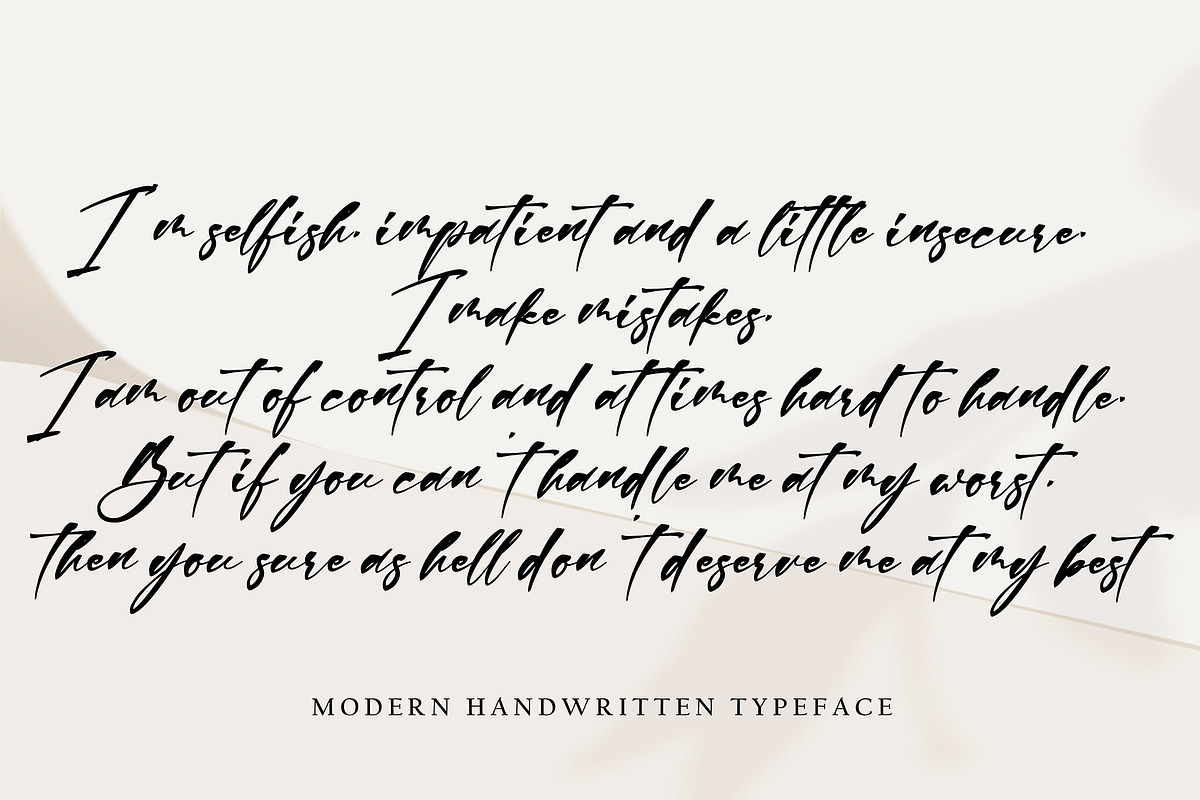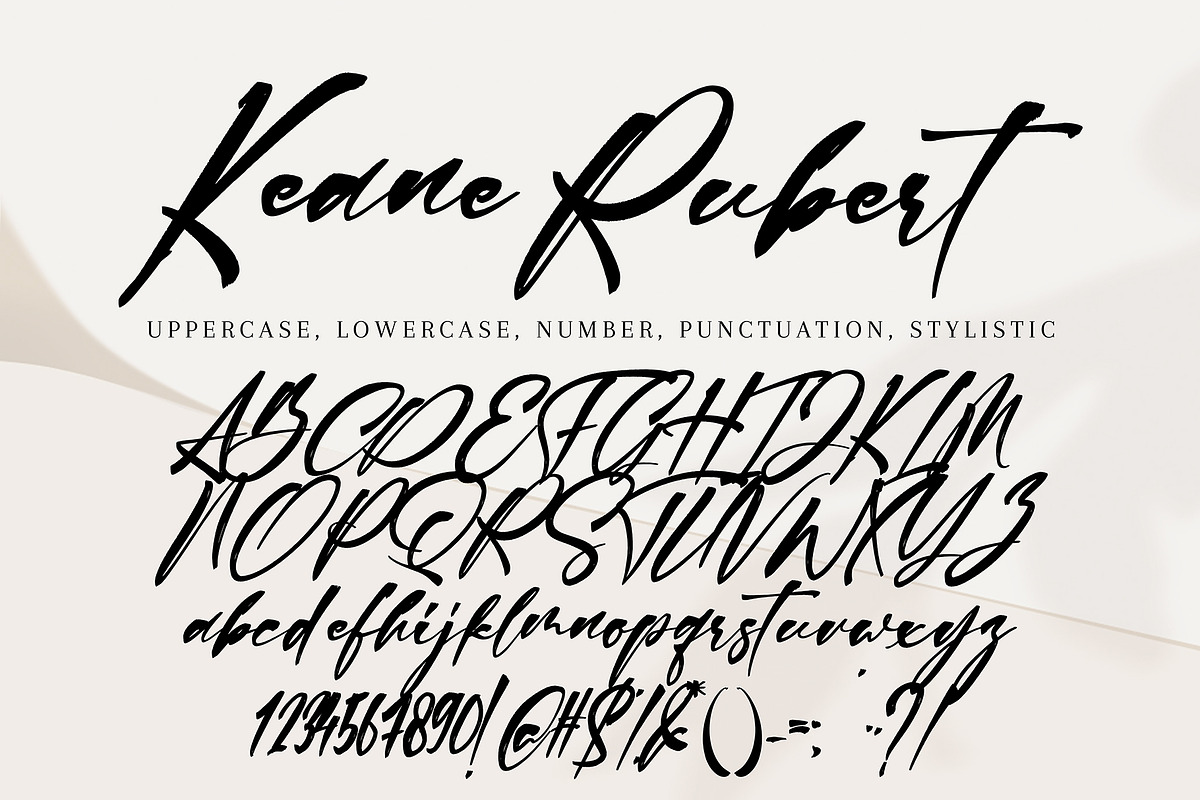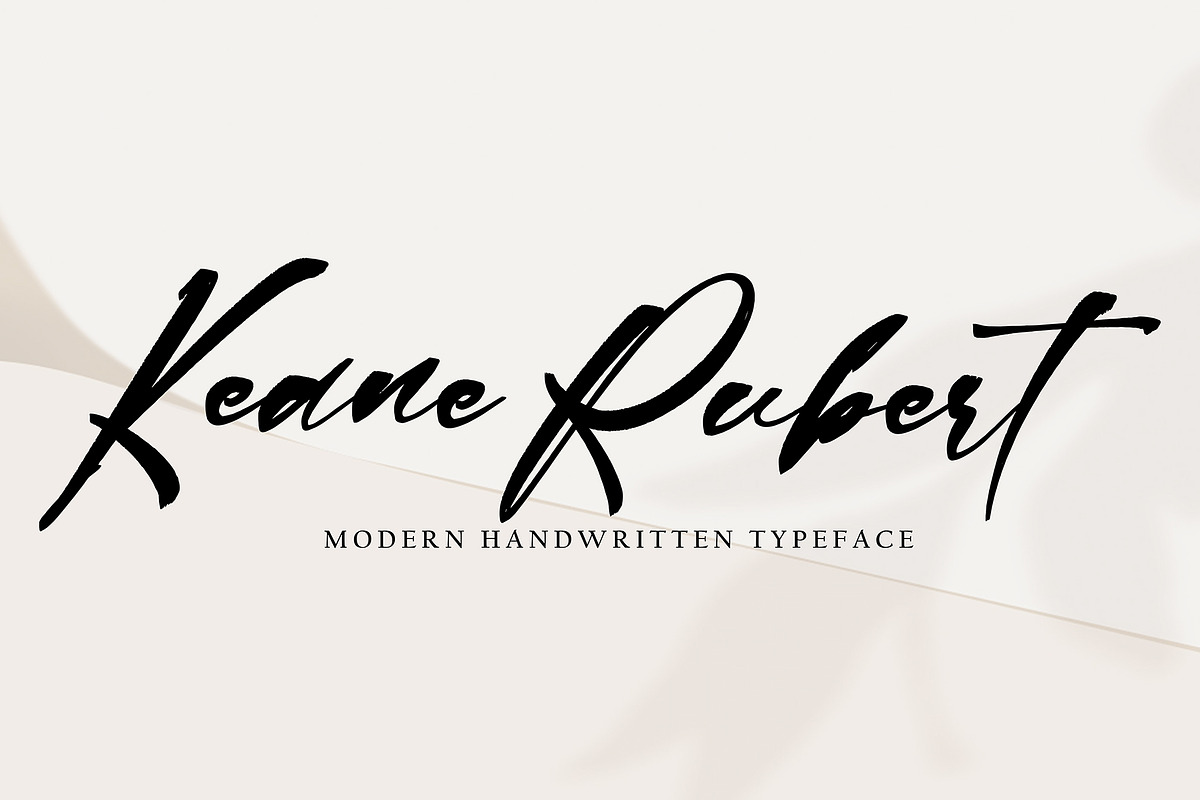
Keane Rubert
Keane Rubertwith new style, this font will perfect for many different project ex: quotes, logo, blog header, poster, banding, letter, invitation, stationery, etc...